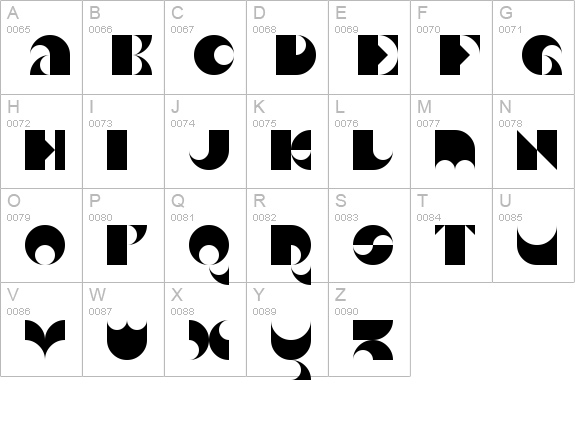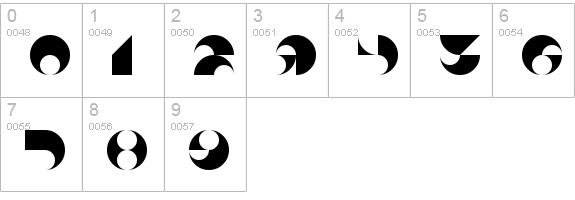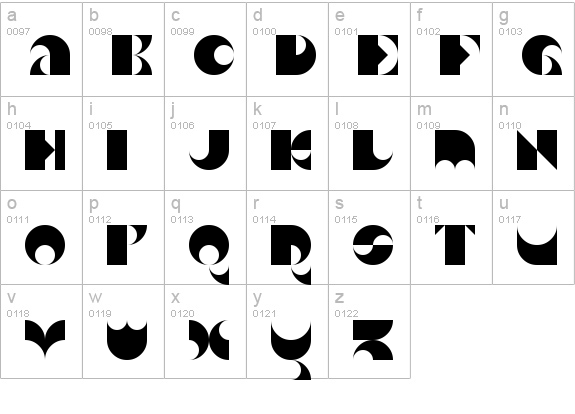
Exoskeleton Regular is the standard, neutral variant in the Exoskeleton typeface family \xE2\x80\x94 well suited to general body text, paragraphs, and standard typographic work.
Exoskeleton Regular font is a sleek and modern typeface that exudes a sense of strength and sophistication. With its clean lines and sharp angles, this font is perfect for adding a contemporary touch to any design project. Whether you're creating a logo, poster, or website, Exoskeleton Regular font will make your text stand out with its bold presence. What sets Exoskeleton Regular font apart is not only its striking design but also its accessibility. This versatile font is freely available to download at FontsMarket.com, making it easy for anyone to incorporate it into their creative endeavors. So go ahead and elevate your designs with the powerful impact of Exoskeleton Regular font today!